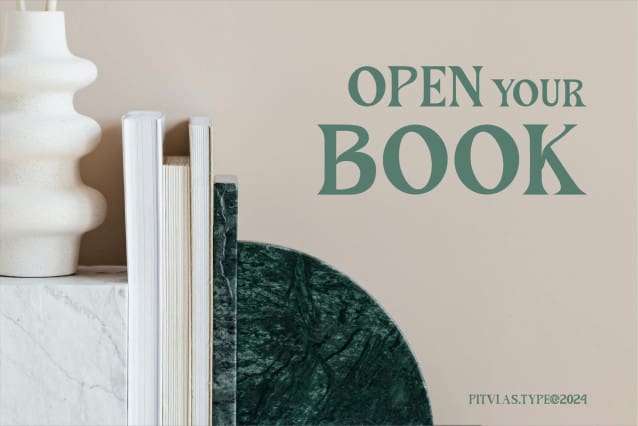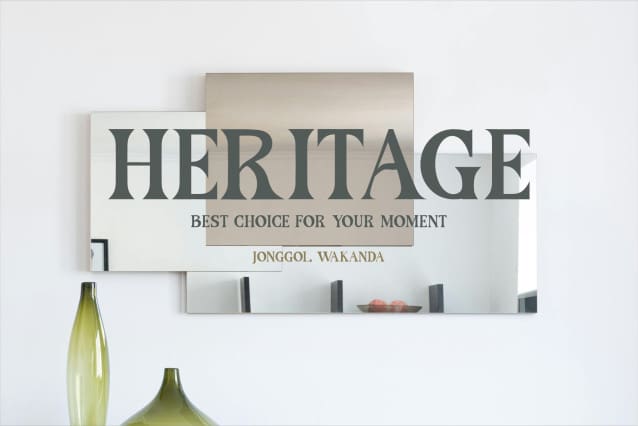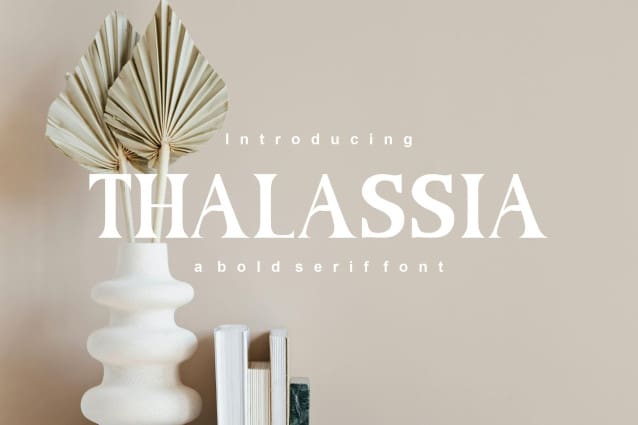
Thalassia Font
Thalassia Font is a font with a simple, elegant and modern serif style. This font is perfect for application in graphic design for interior products and promotional designs for your website. Also perfect for beauty magazine covers and beauty product graphics